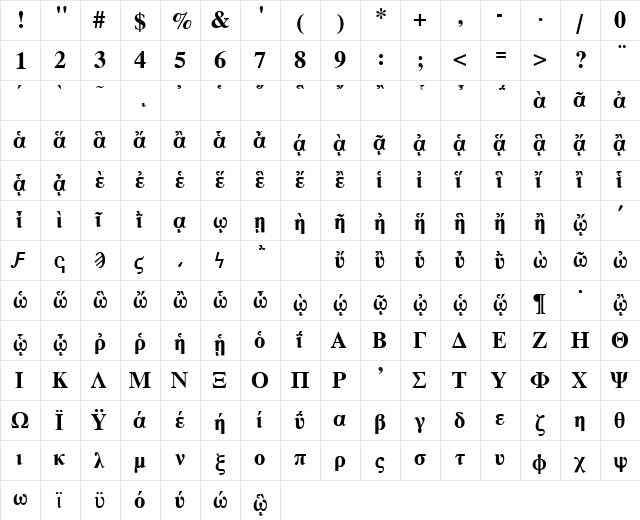
GreekTimesAncientSSK Bold
Design Context for GreekTimesAncientSSK Typeface
GreekTimesAncientSSK takes a measured approach to typography — its balanced proportions and neutral character make it a reliable workhorse for both digital and print work. The heavy weight commands attention and anchors typographic hierarchies.